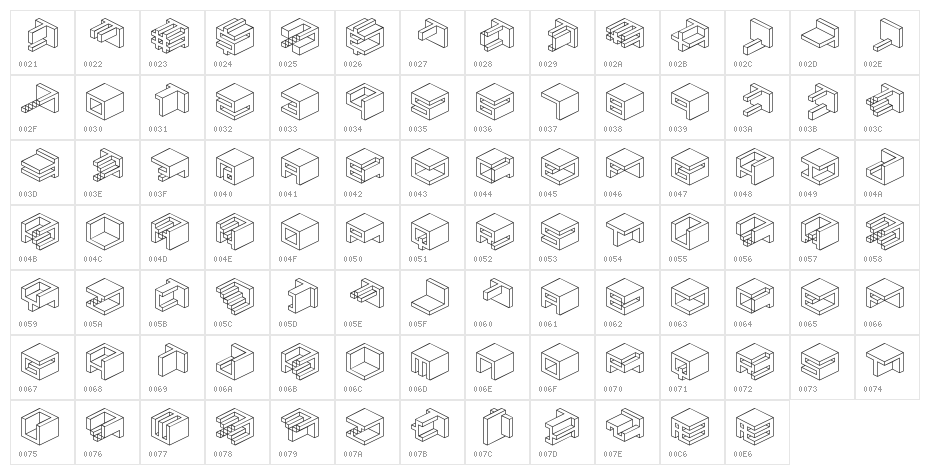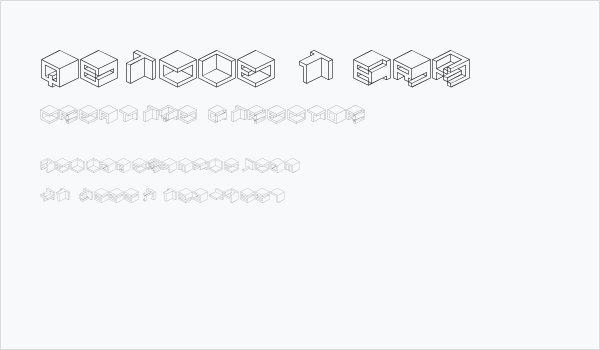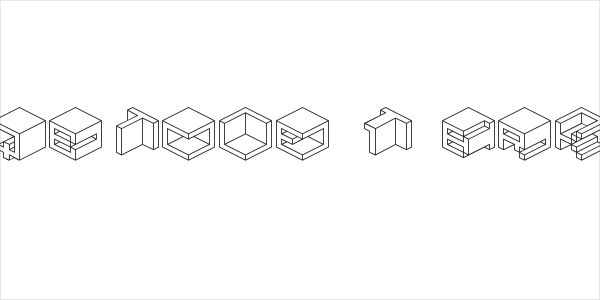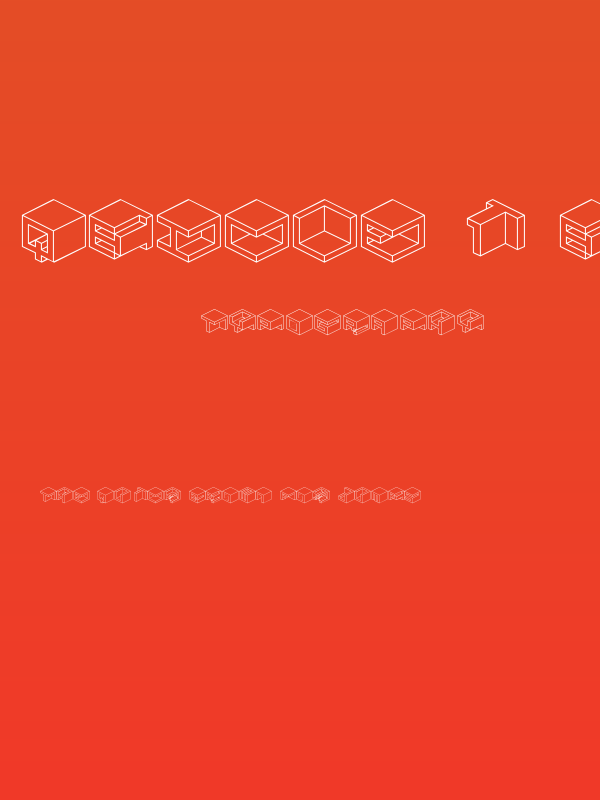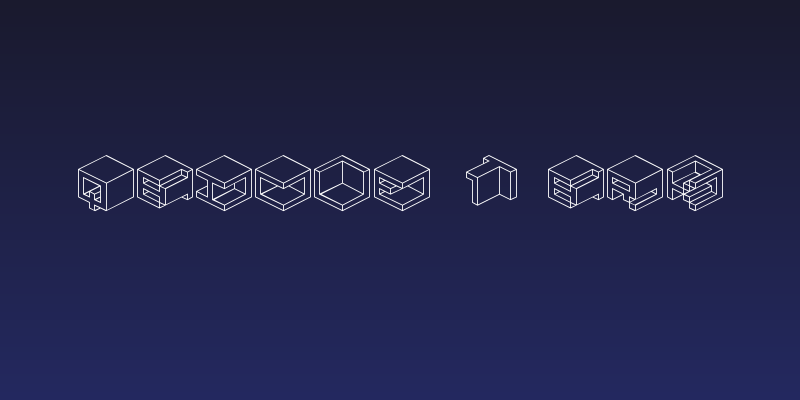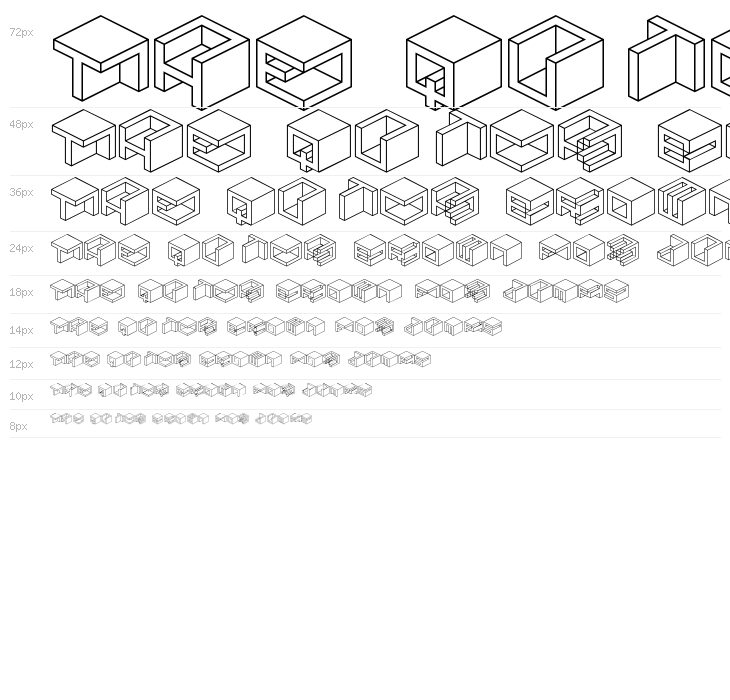
Qbicle 1 BRK Font
Qbicle 1 BRK Description
This font features a unique, three-dimensional cubic design where each character is represented as a block with cutouts forming the letter shapes. The geometric style gives it a modern and futuristic appearance, with clean lines and a structured form. The characters are consistent in their cubic form, creating a uniform look across the alphabet and numbers. This font stands out due to its architectural and isometric perspective, making it ideal for projects that require a bold and innovative visual impact. The special characters are also integrated into the cubic design, maintaining the overall aesthetic.
| Proposed Projects | Ideal for architectural designs, futuristic branding, tech-related projects, and innovative advertising campaigns. |